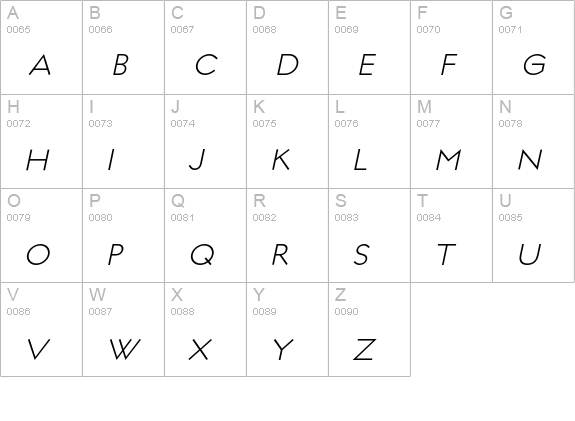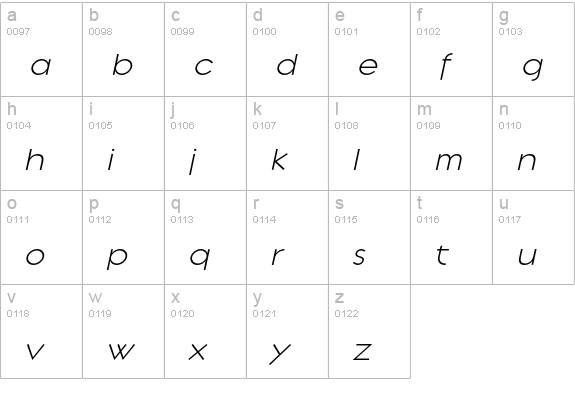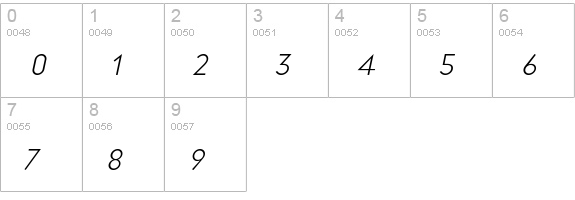
Regulator-LightItalic Font Details
Regulator-LightItalic font is a stunningly elegant typeface that exudes a delicate and refined charm. Its sleek and slender letterforms gracefully flow across the page, adding a touch of sophistication to any project. The light italic style of this font gives it a subtle and graceful appearance, making it perfect for conveying a sense of elegance and sophistication. With its clean and modern design, Regulator-LightItalic font is versatile and suitable for a wide range of applications. Whether used in print or digital media, this font effortlessly adds a touch of class to any design project, be it a logo, website, or branding materials. What makes Regulator-LightItalic font even more appealing is that it is freely available to download at FontsMarket.com. This means that designers and creatives can easily access this beautiful typeface without any cost or hassle. With just a few clicks, anyone can enhance their projects with the timeless beauty of Regulator-LightItalic font. So, if you're looking for a font that combines elegance, versatility, and affordability, look no further than Regulator-LightItalic font. Download it for free at FontsMarket.com and let your creativity soar with this captivating typeface.